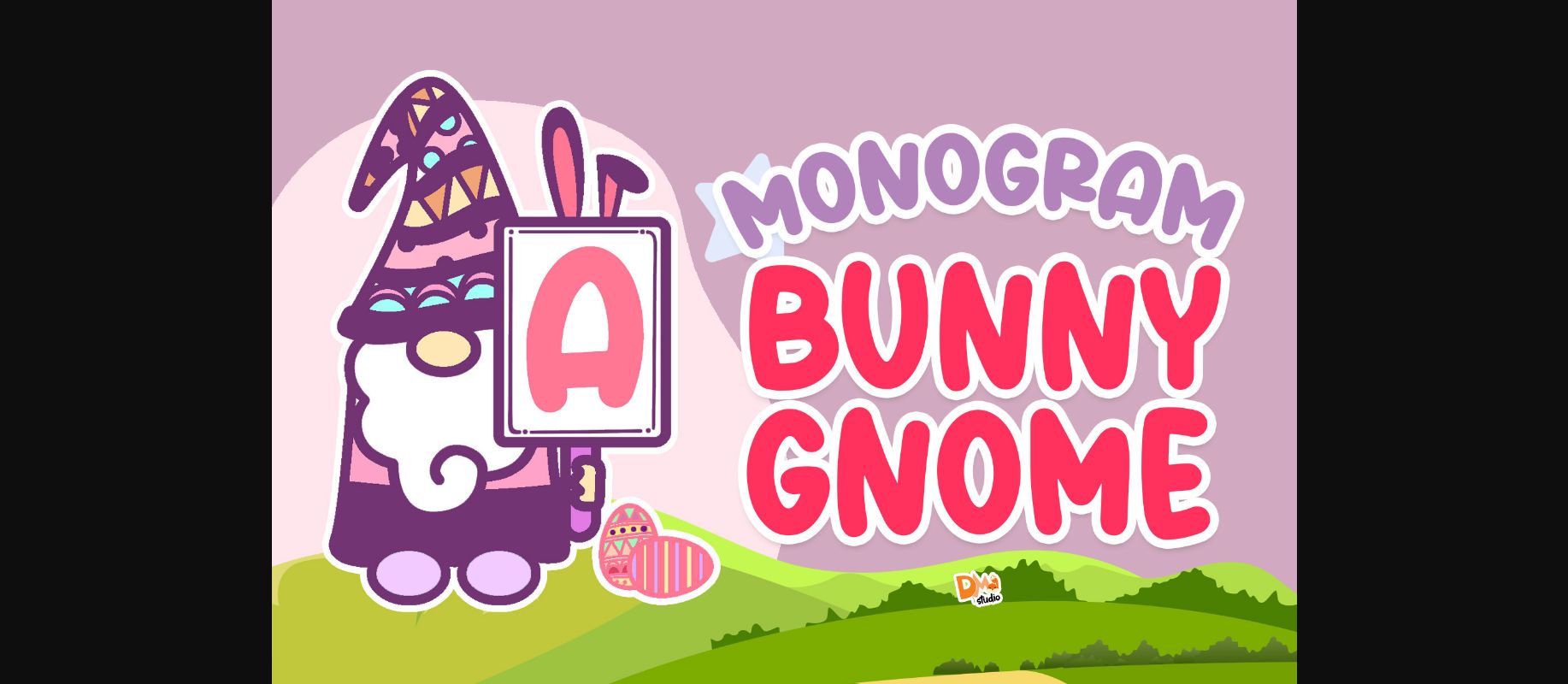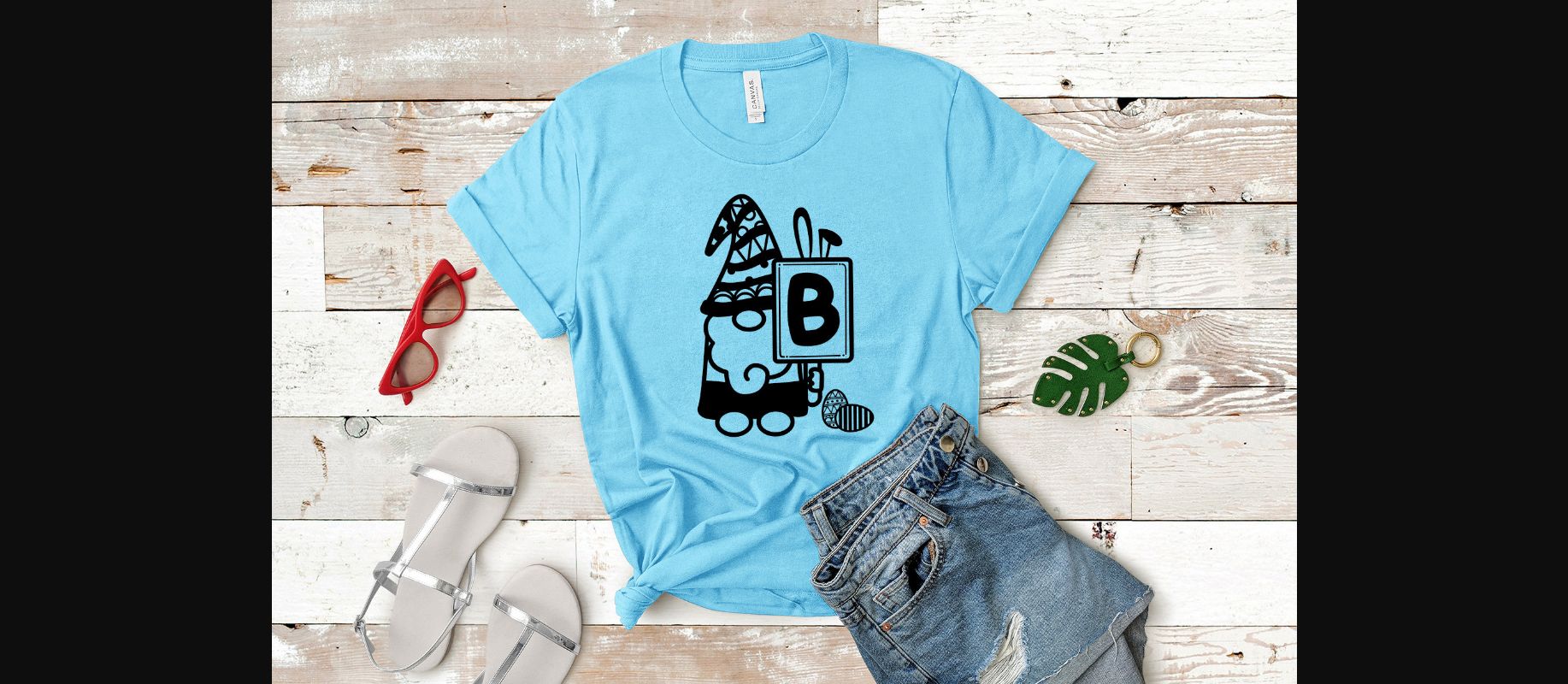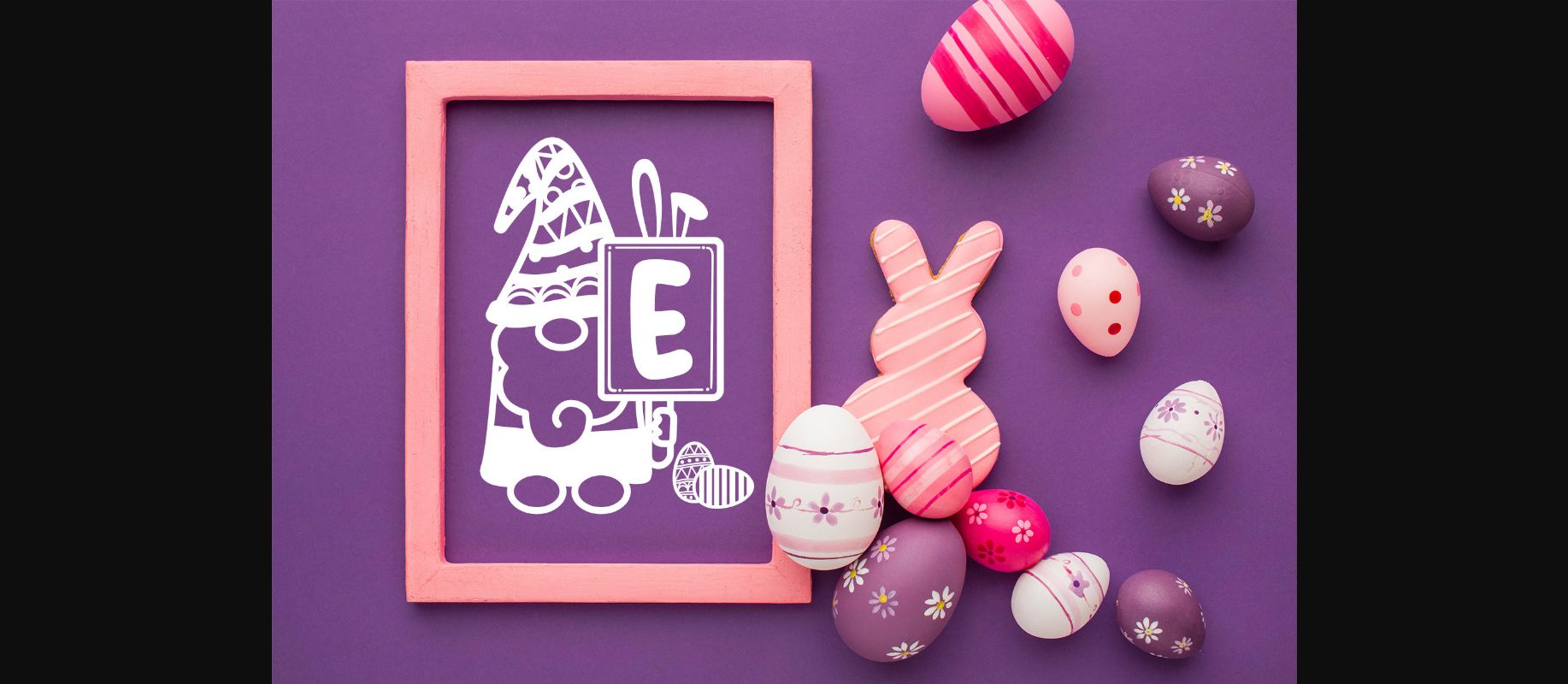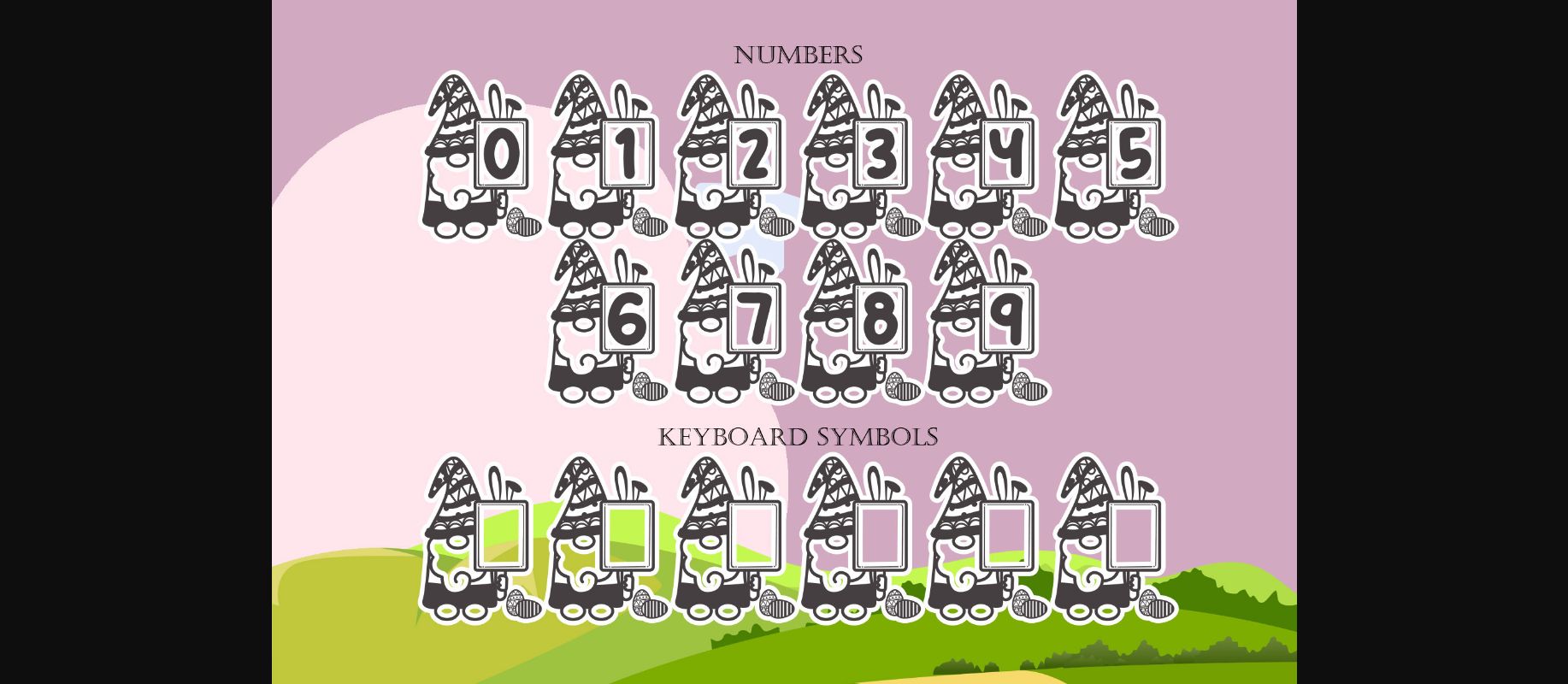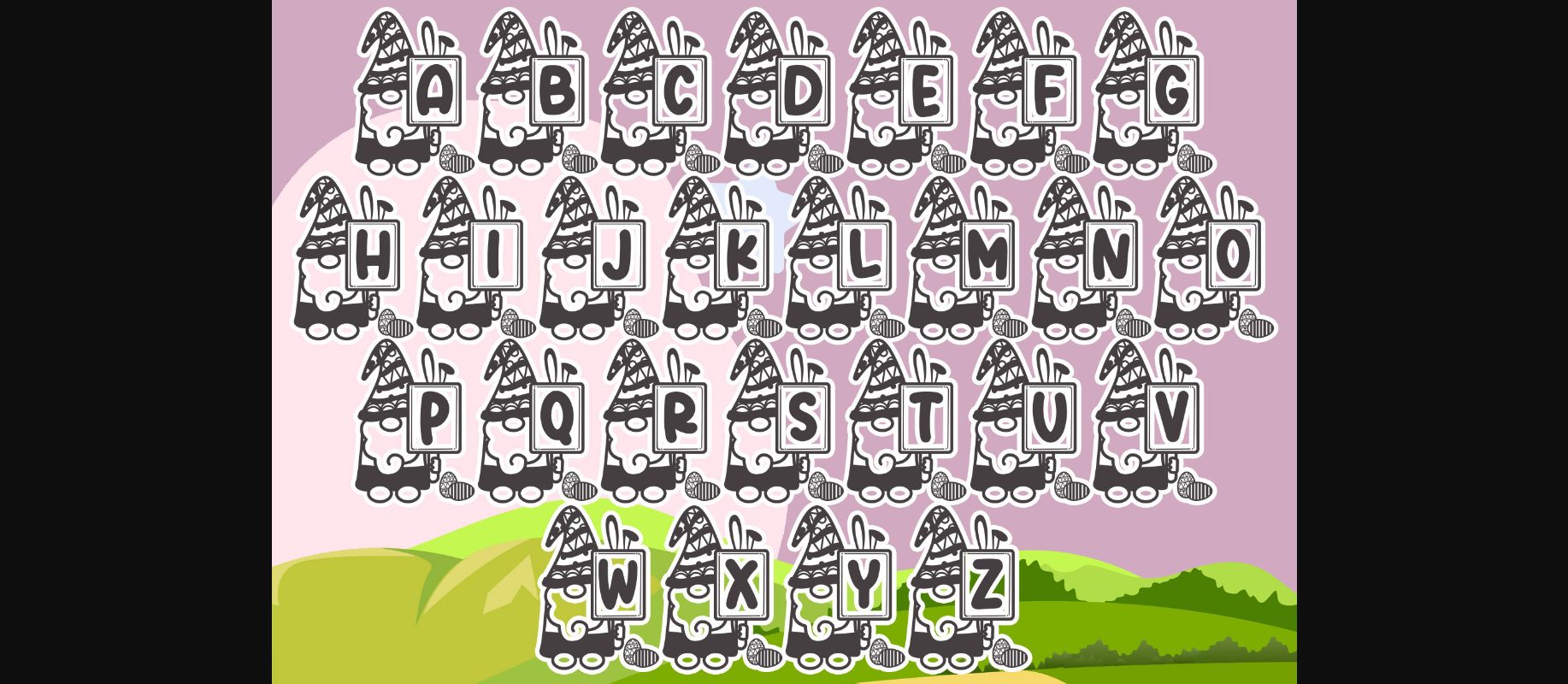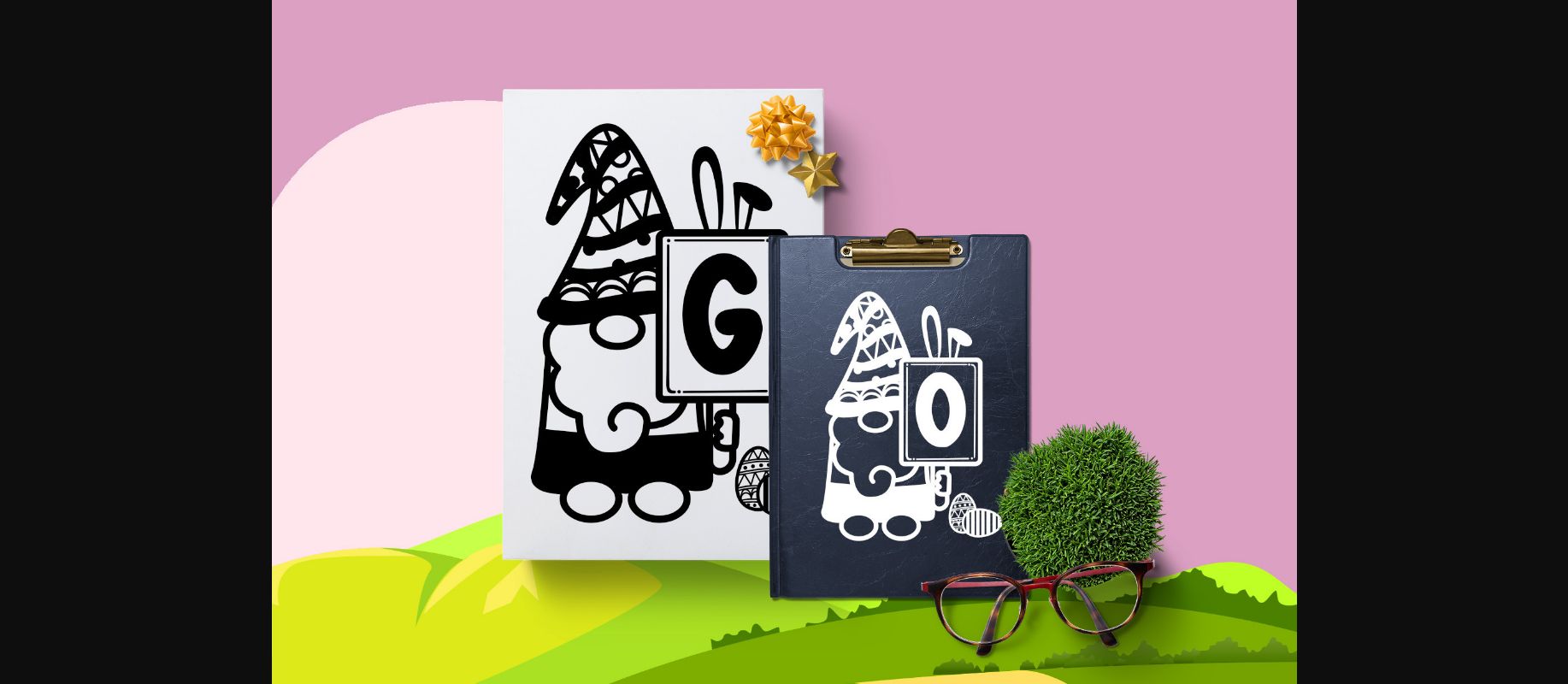
Monogram Bunny Gnome Font
About Monogram Bunny Gnome Font
Monogram Bunny Gnome is a cute and incredibly unique decorative font. Whether you use it for cartoon related designs, children games or just any creation that requires a lovely touch, this font will be an amazing choice.